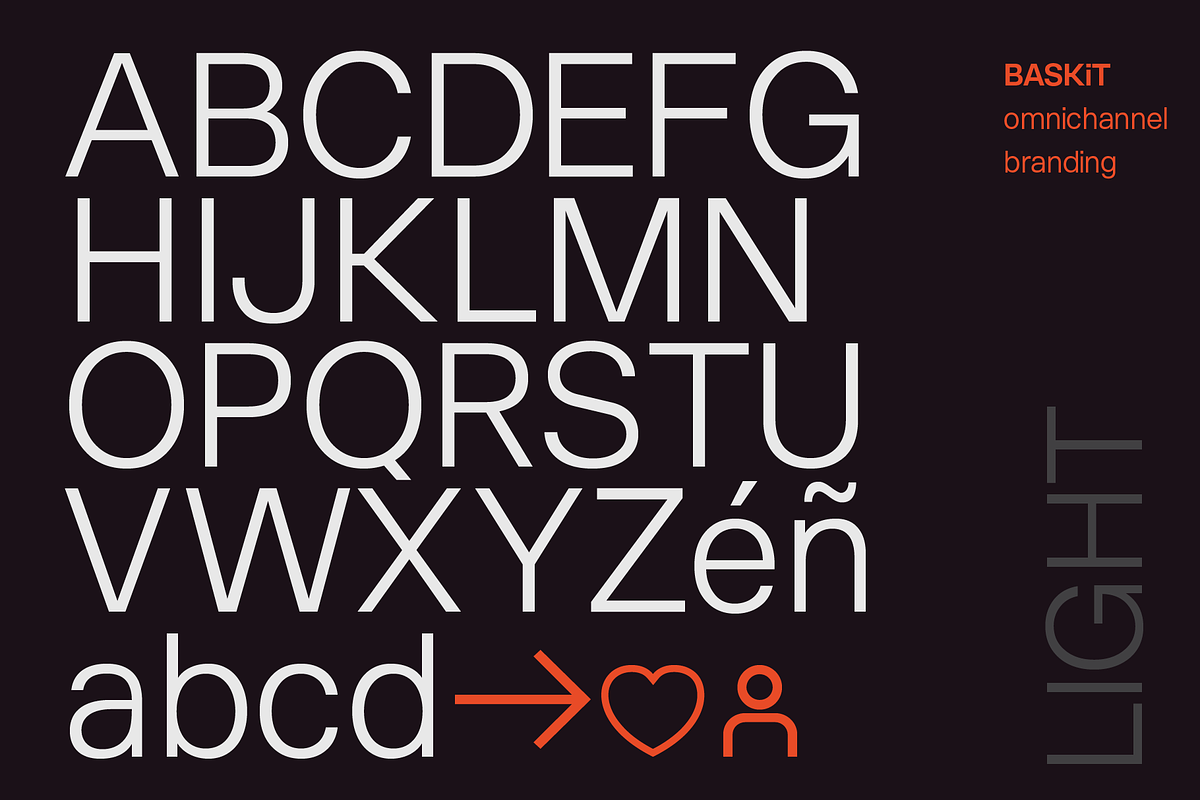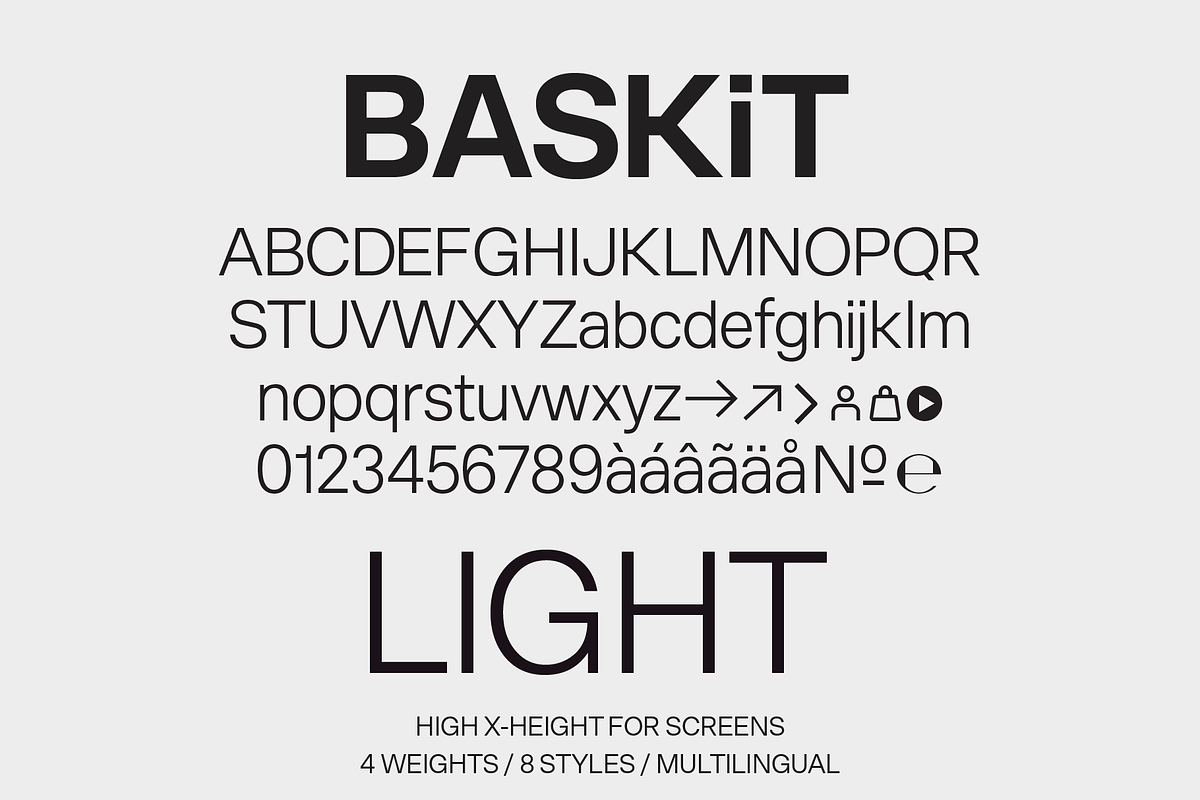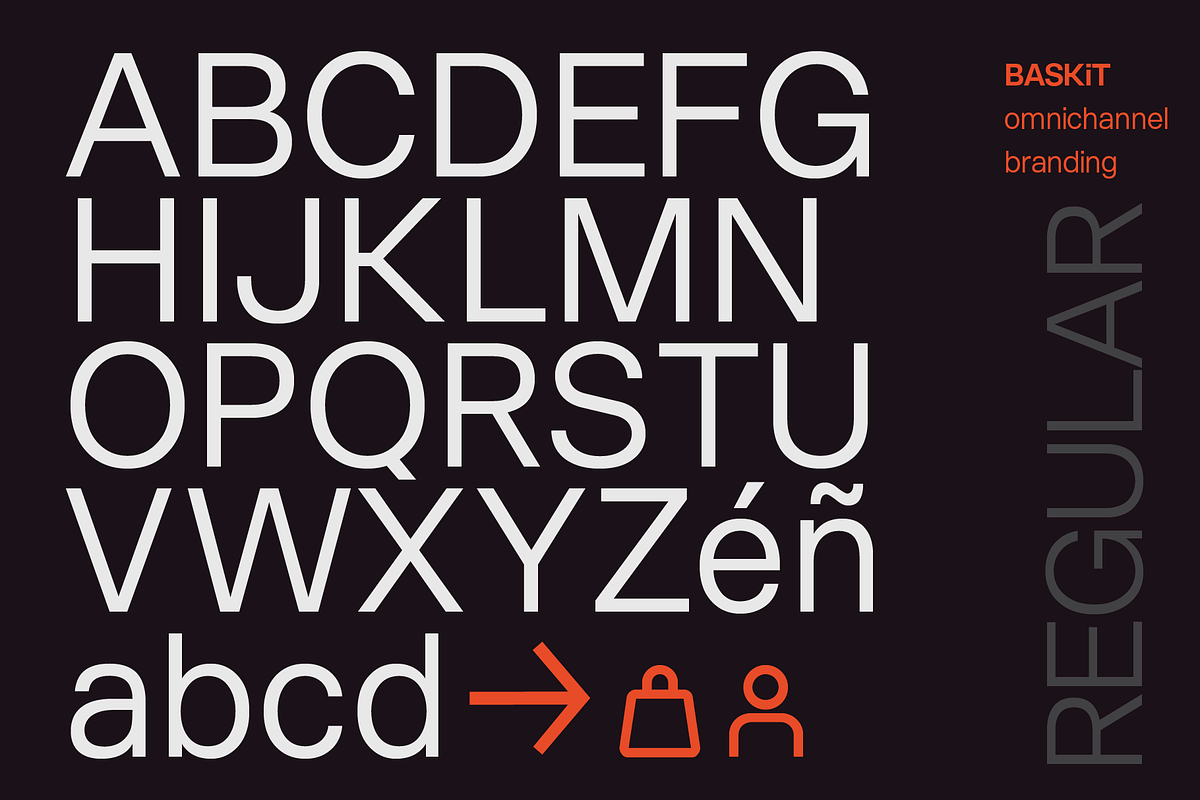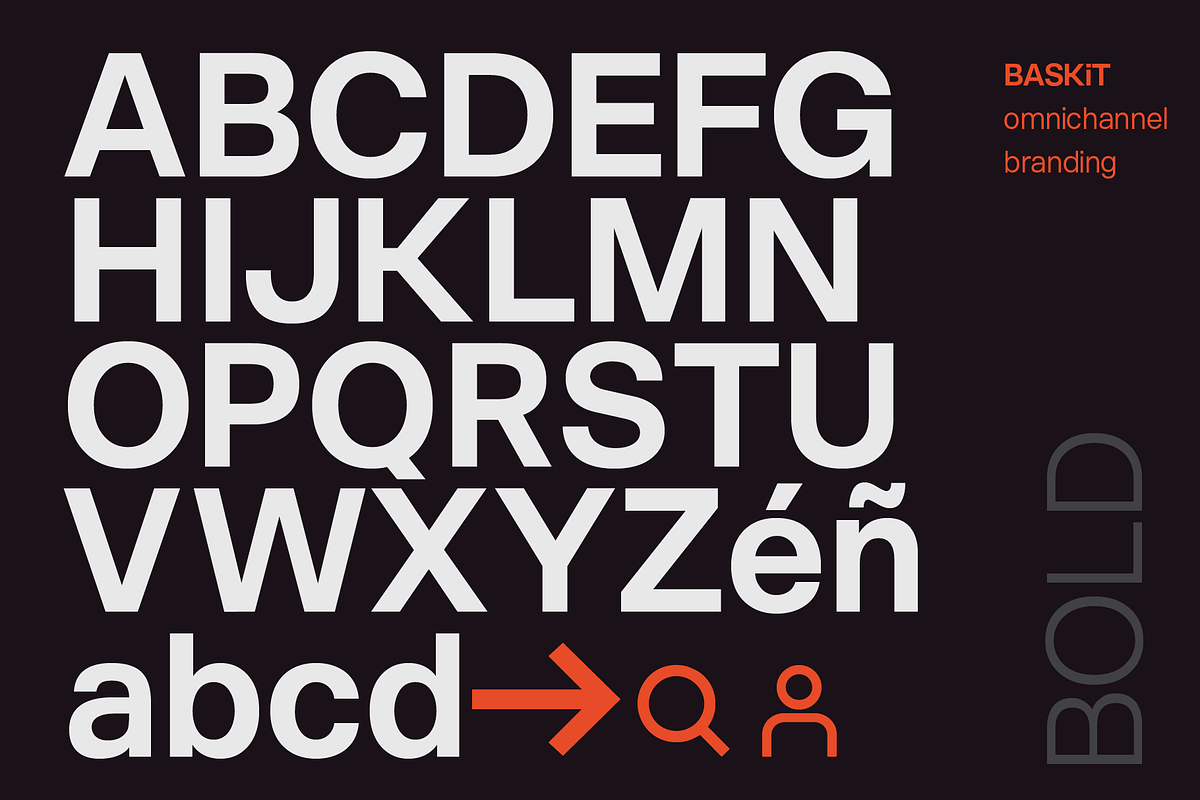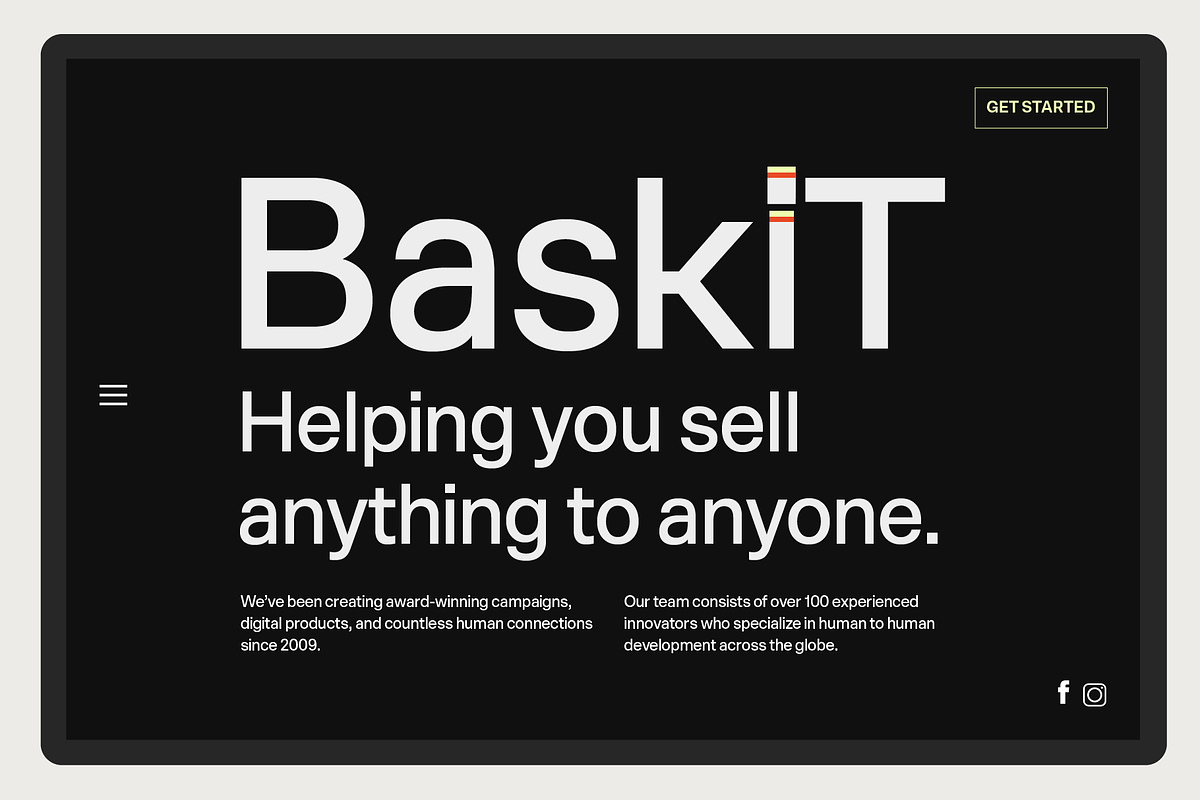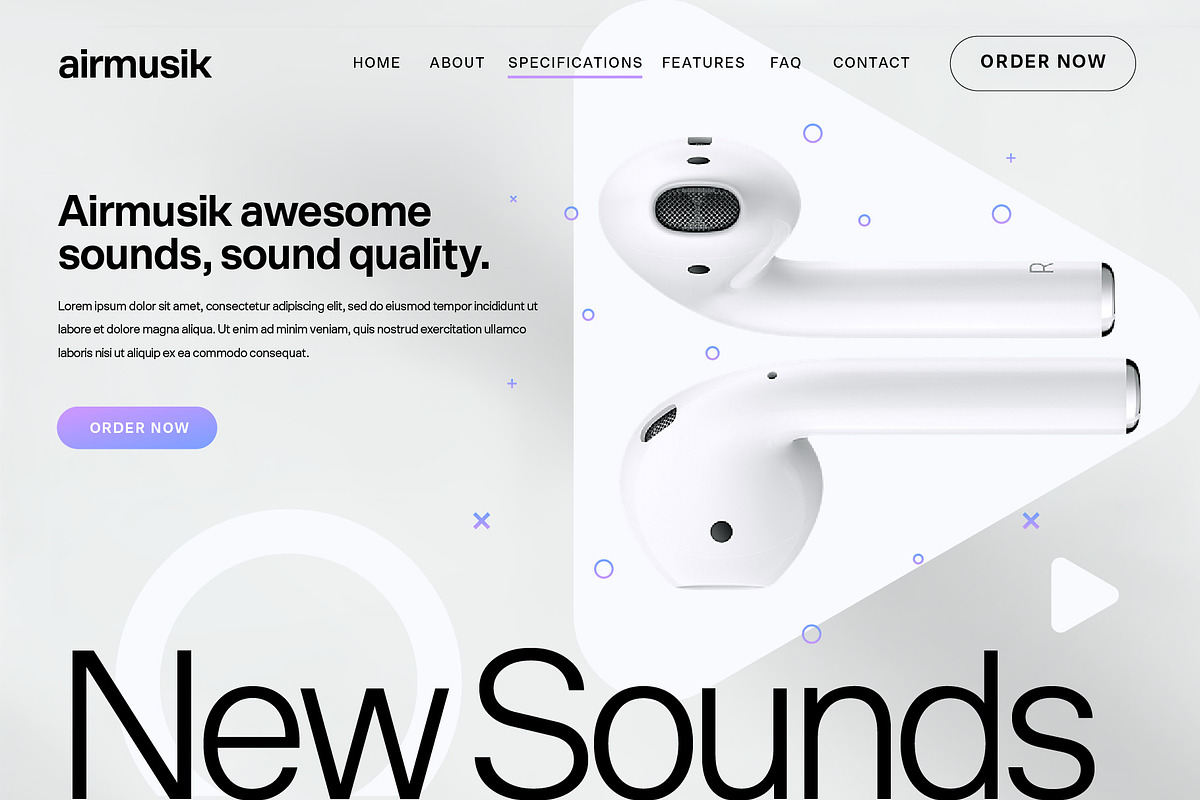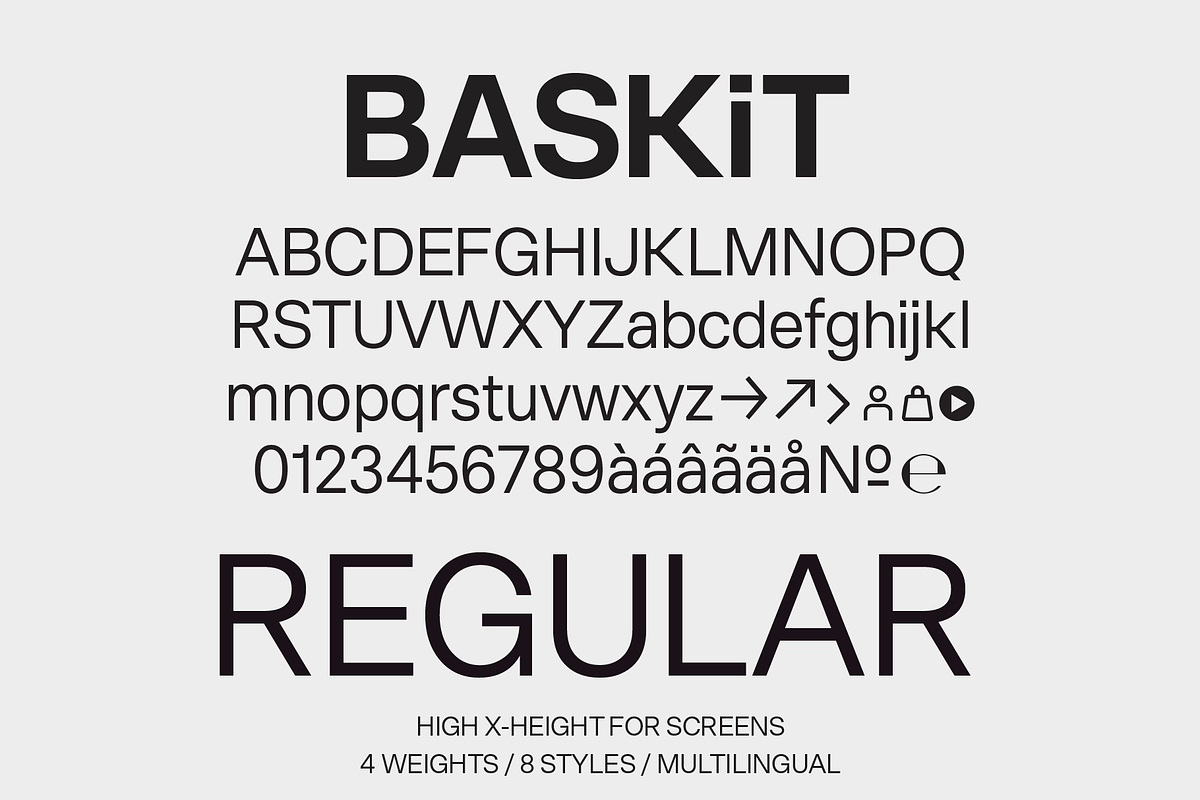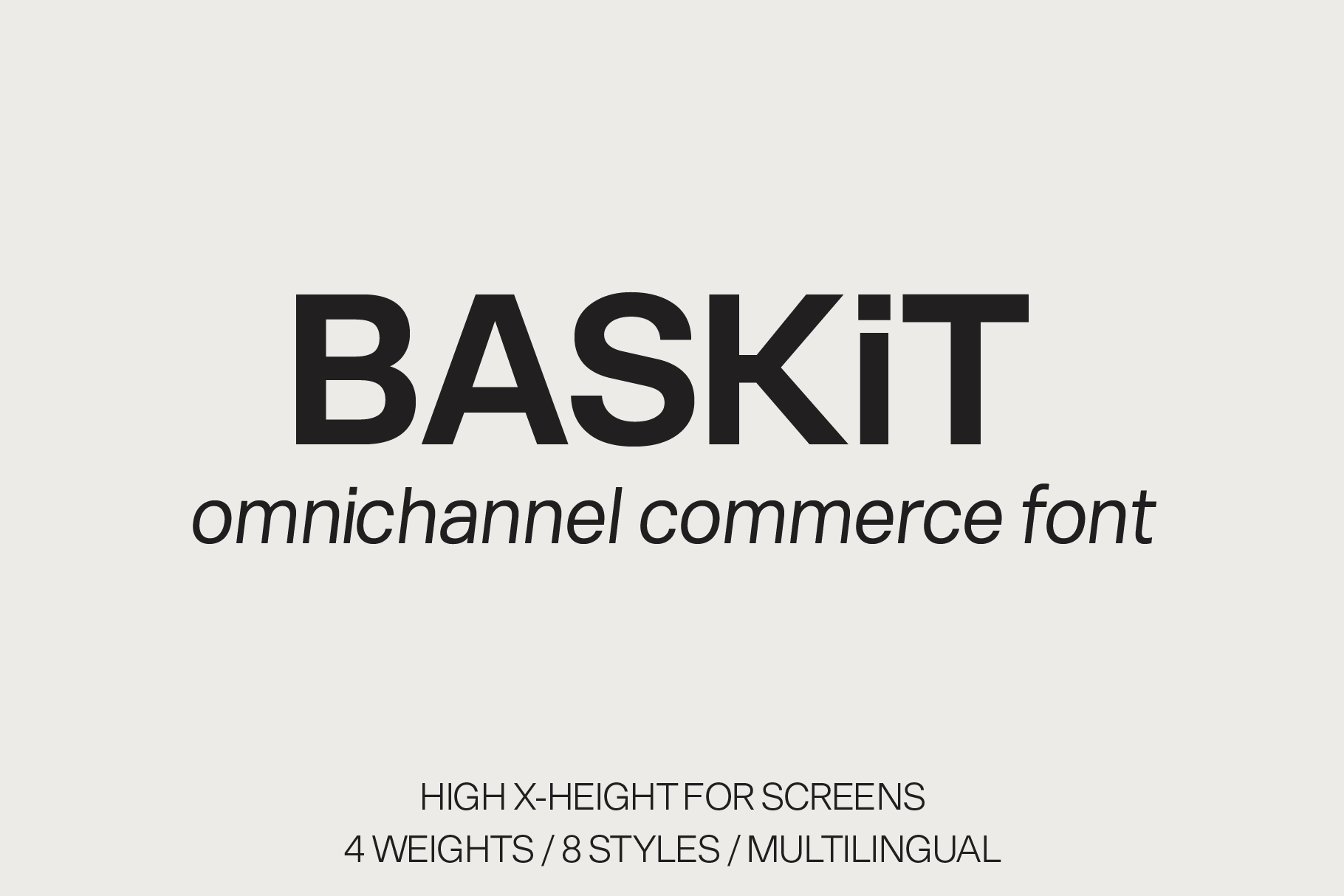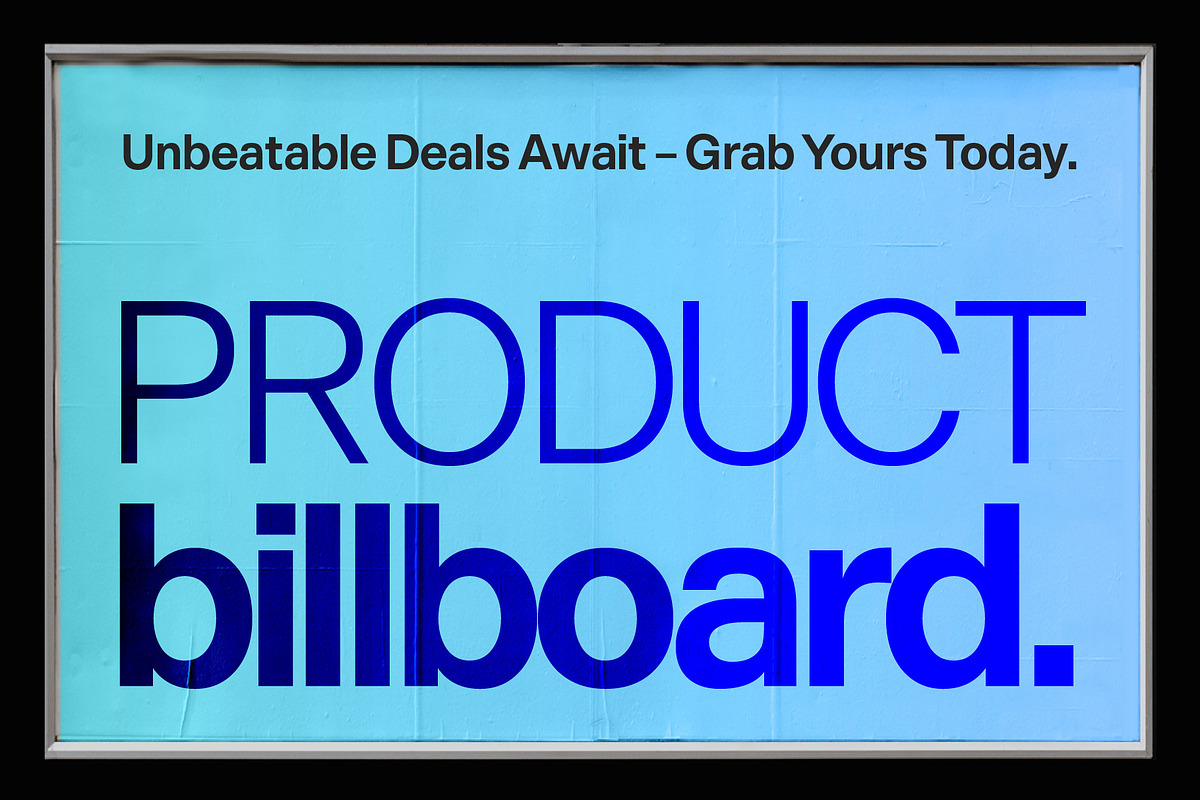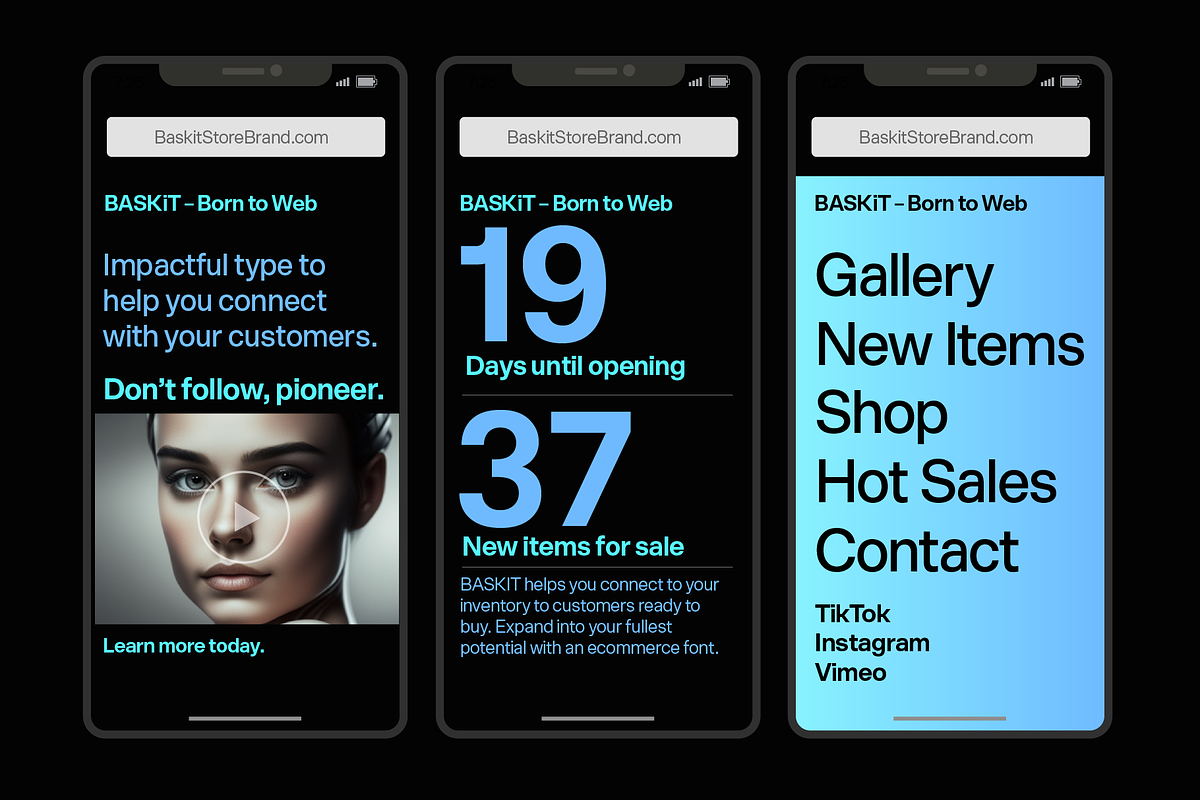
BASKiT e-Commerce Branding Font
Meet BASKiT™, the e-commerce and branding font. A font of its time to help you connect with your future aspirations. Perfect for web and offline tactics. BASKiT, with its heigh x-height and economical character widths, make it ideal for screens. The modern look and feel adds a memorable fresh face to help with brand retention. Don’t settle for bland when you can up-level your branding with BASKiT. See more ways to use BASKiT on momentum18.com.